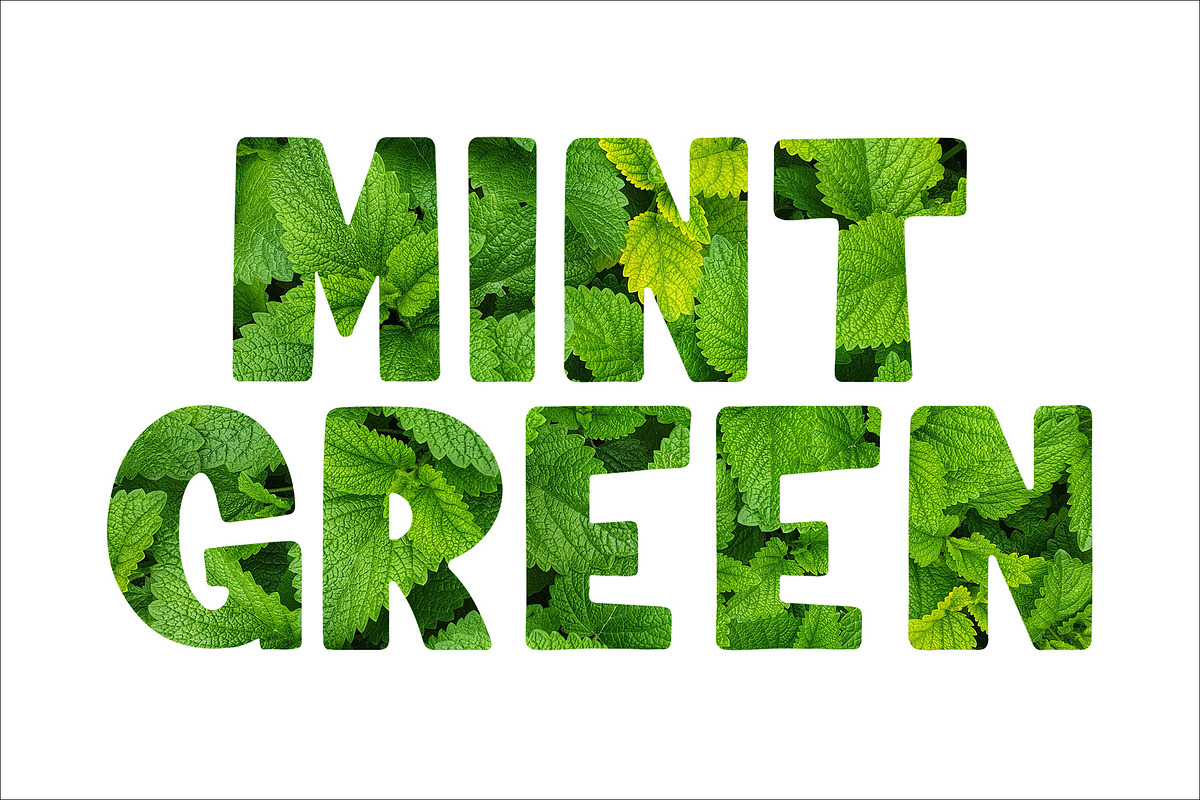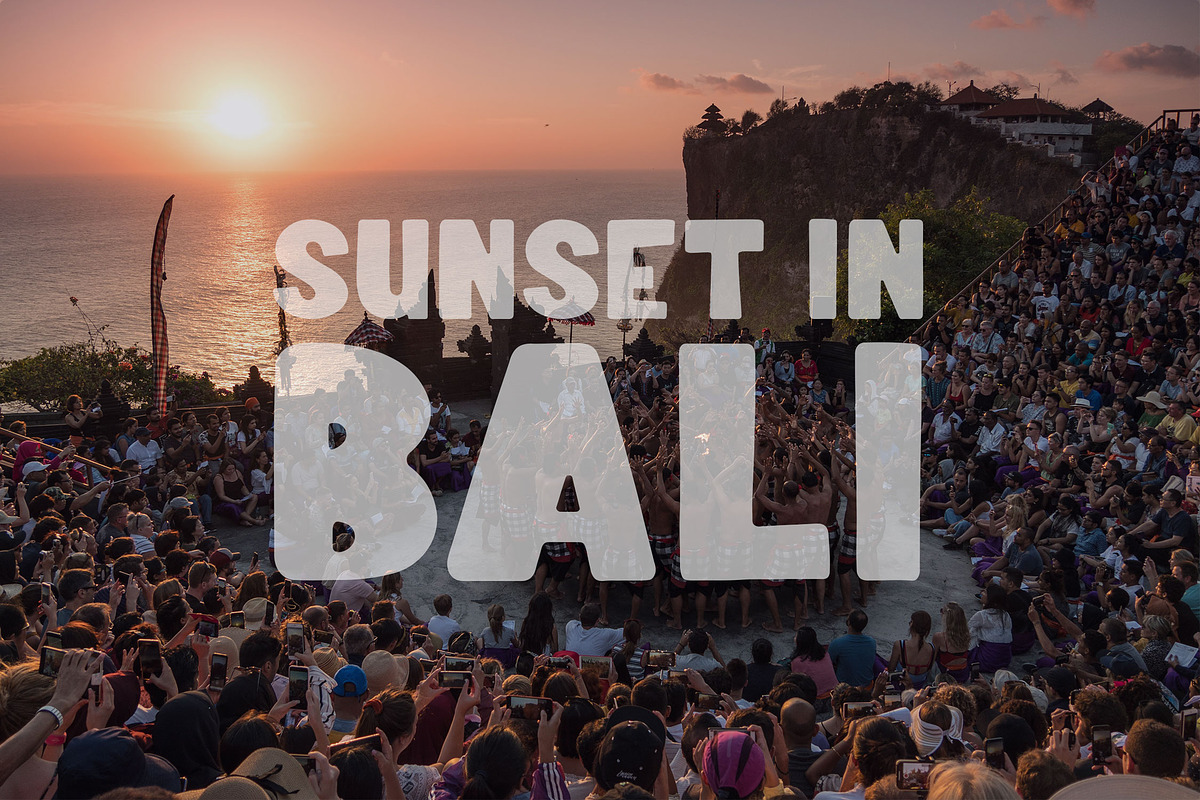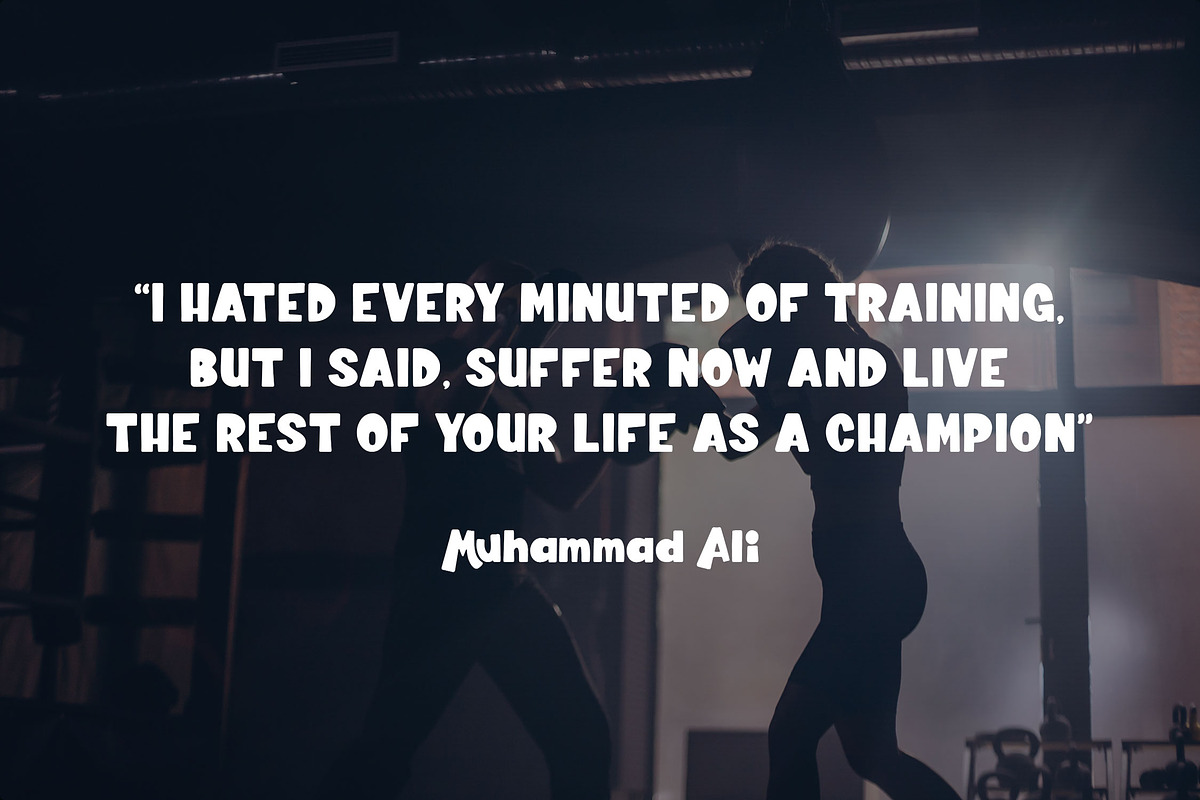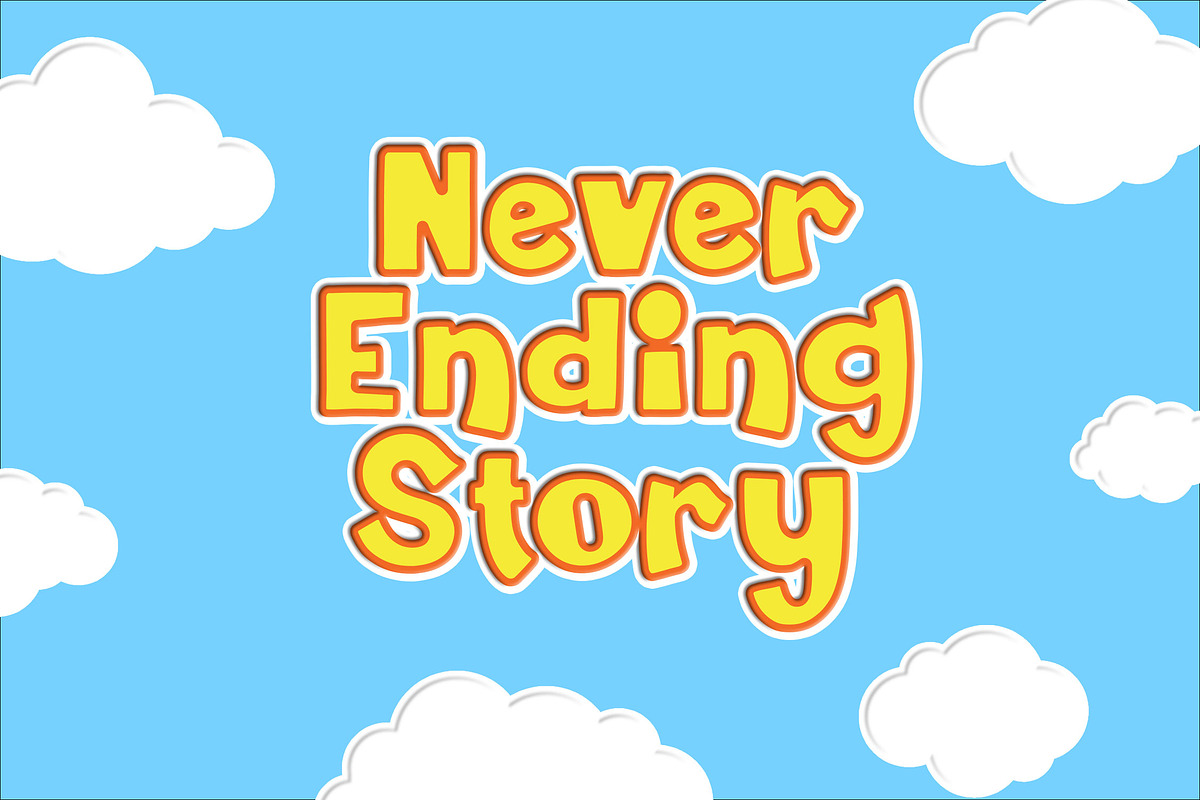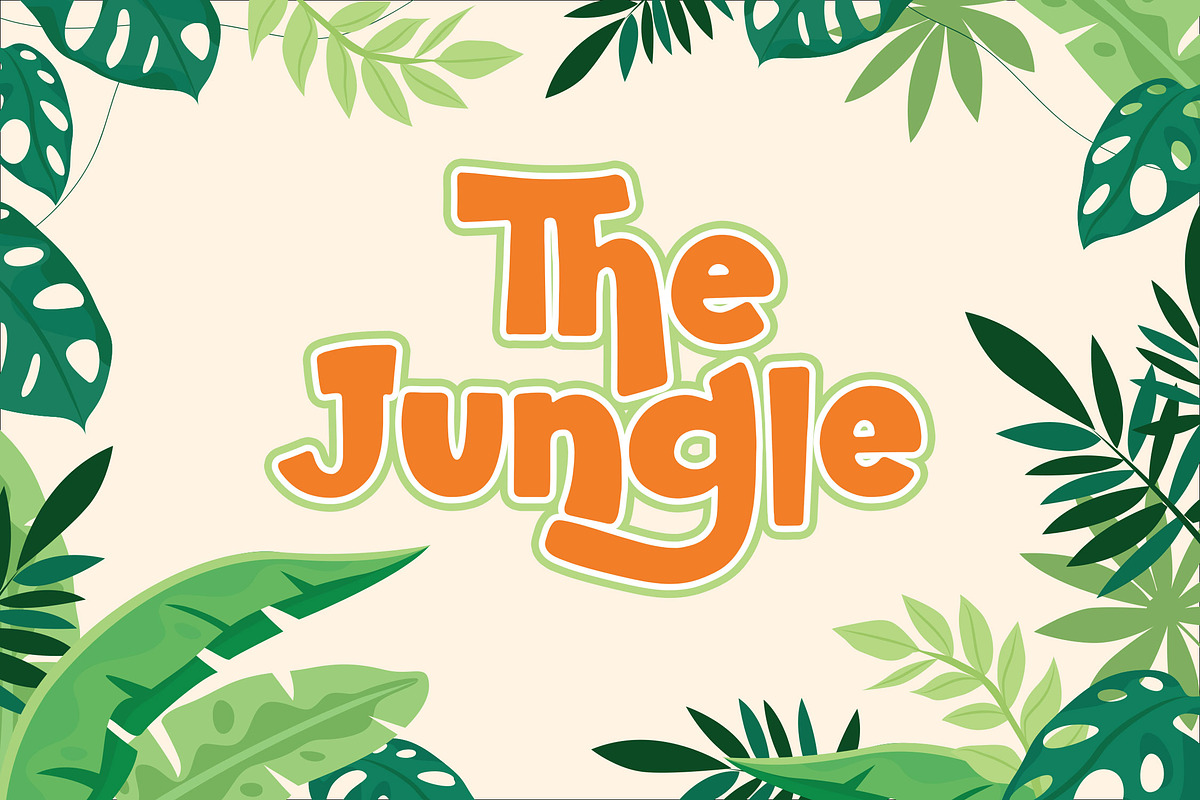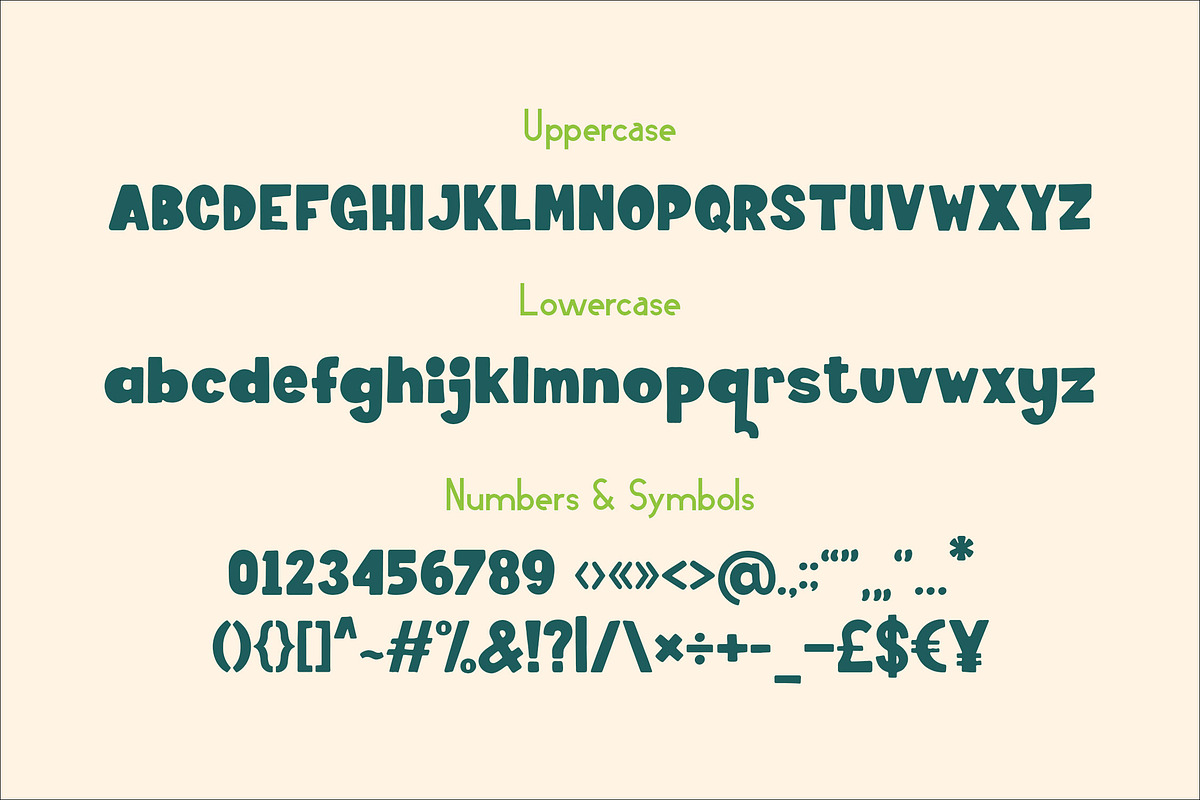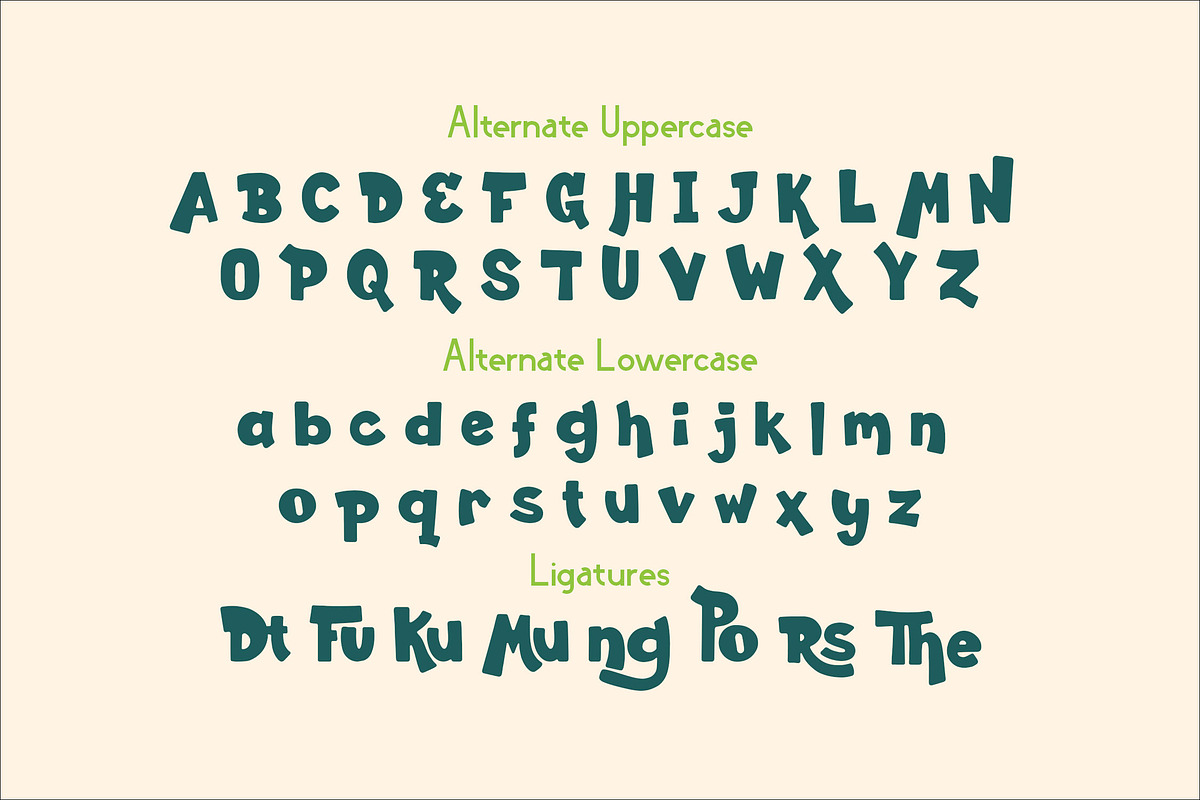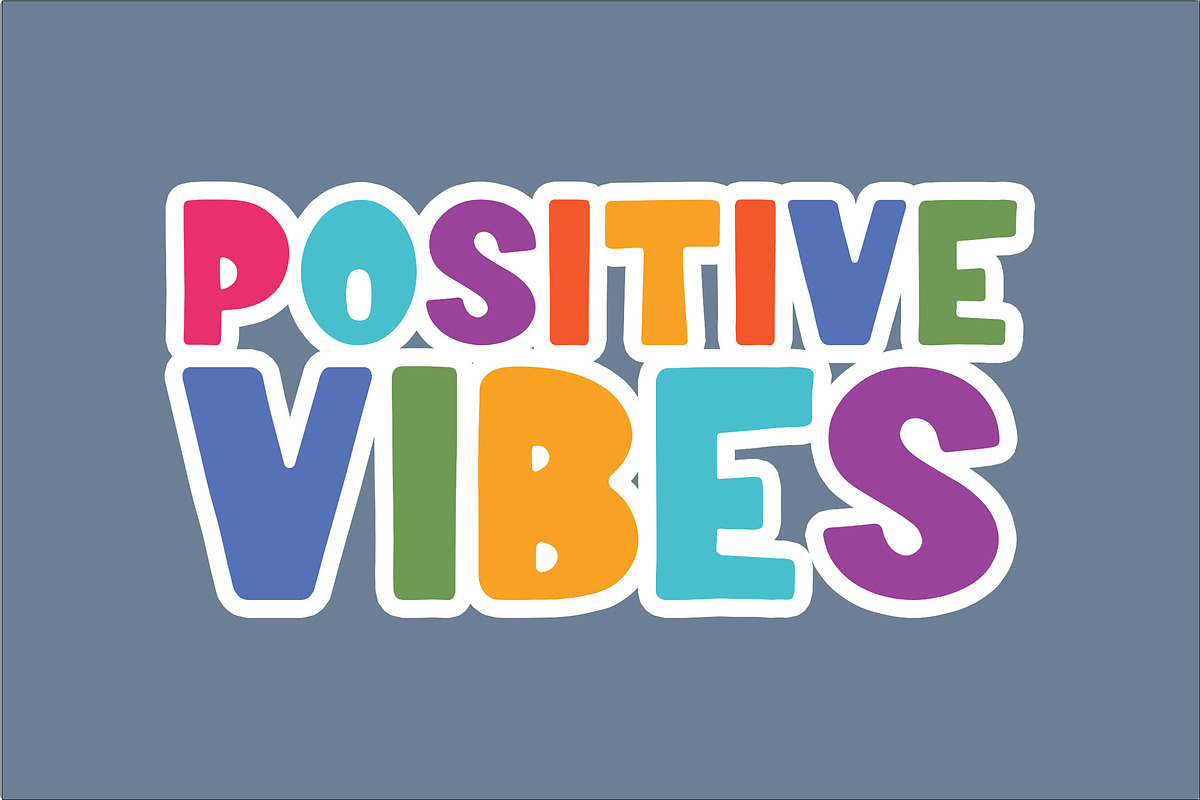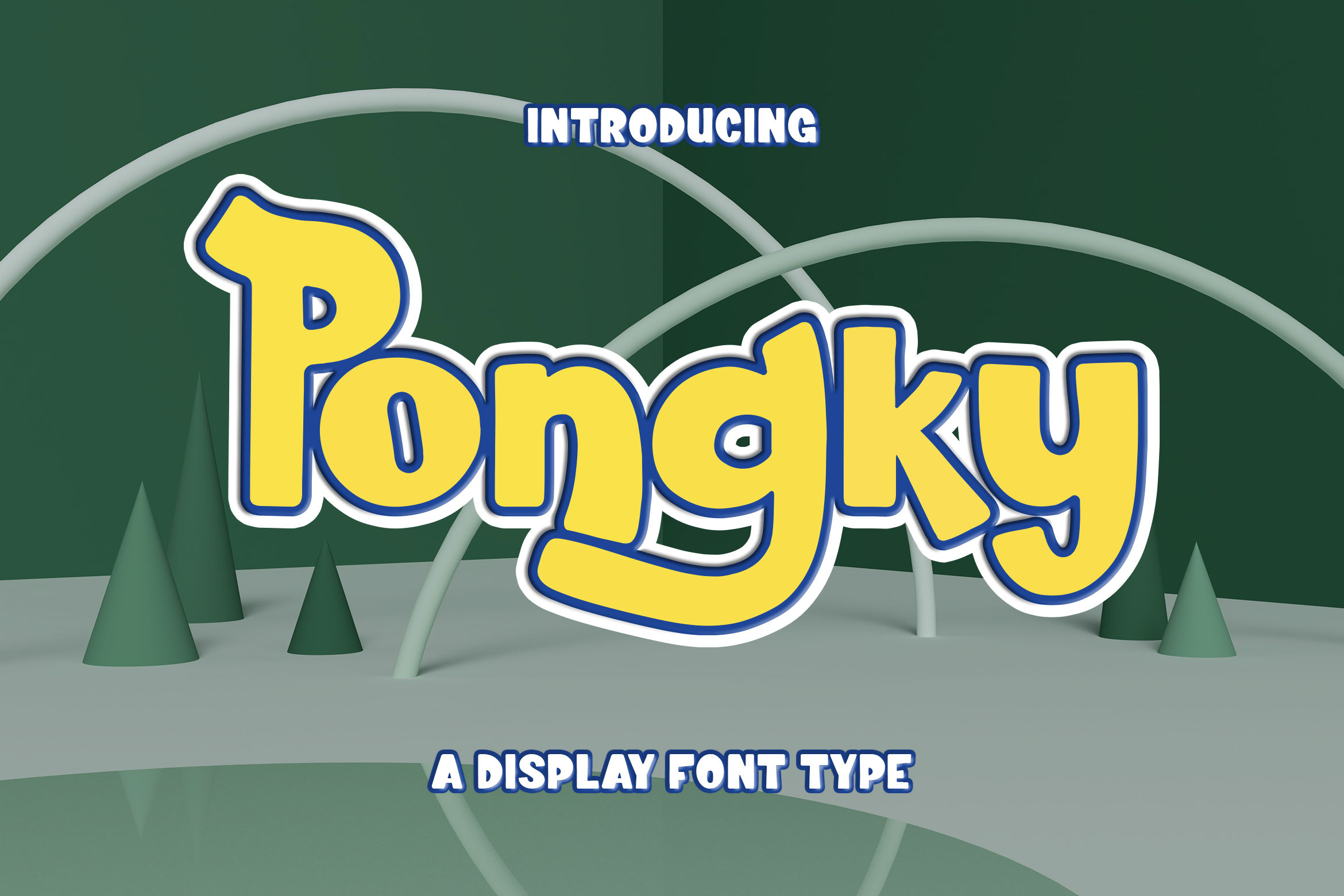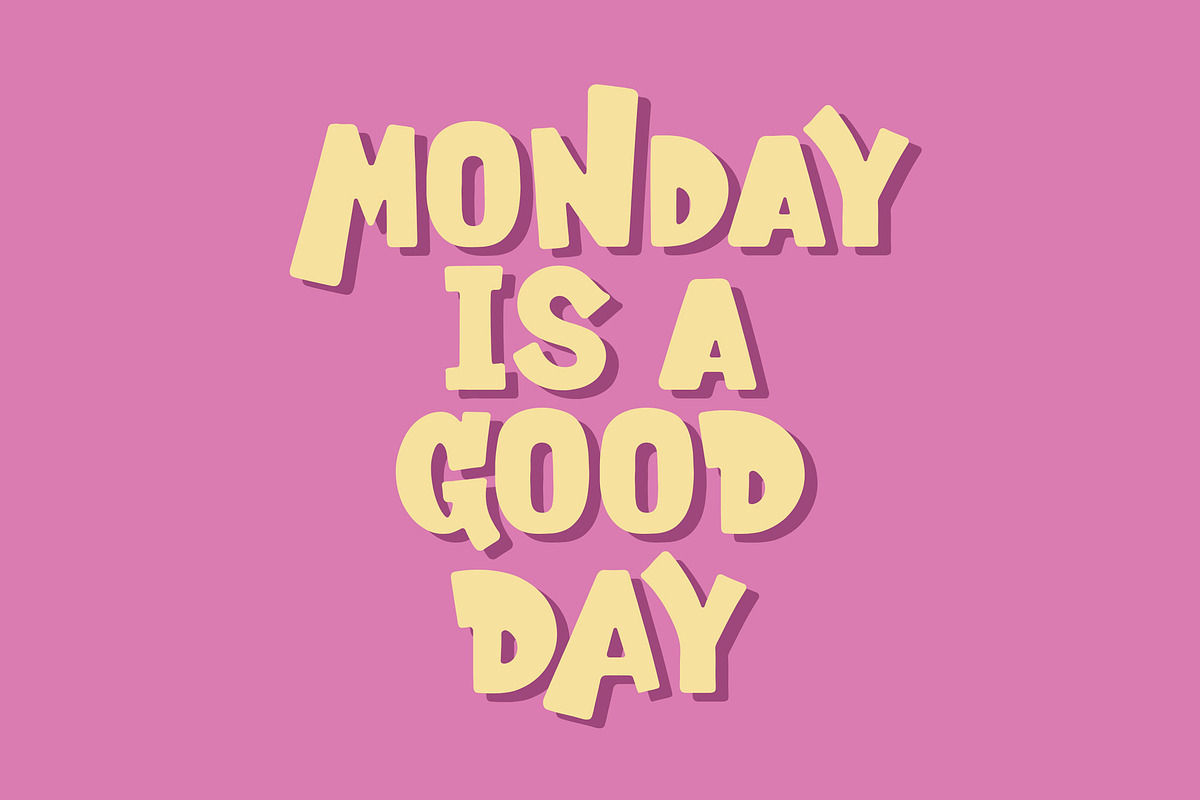
Pongky – Display Font Type
Introducing Pongky, is a Display Font Type has many purpose and suitable for badges, logotype, poster, tagline, decorative, sticker, advertising and much more.
- Available Ligatures and Alternates